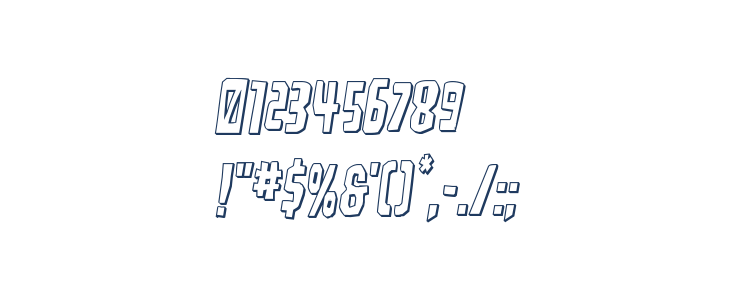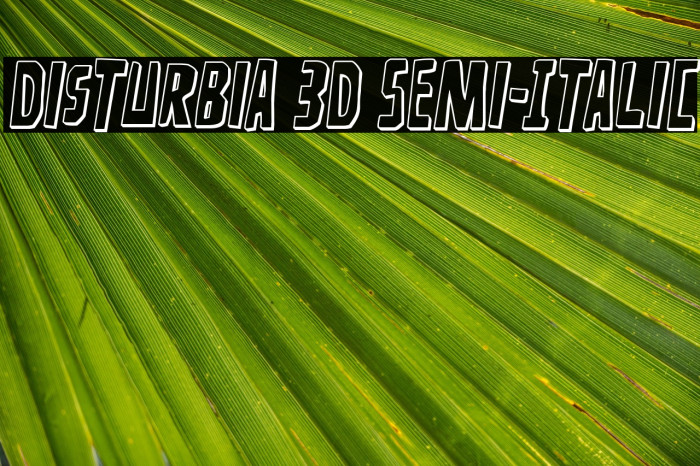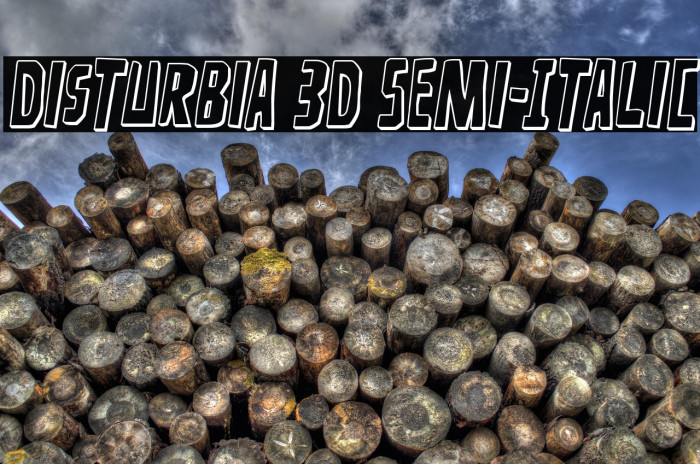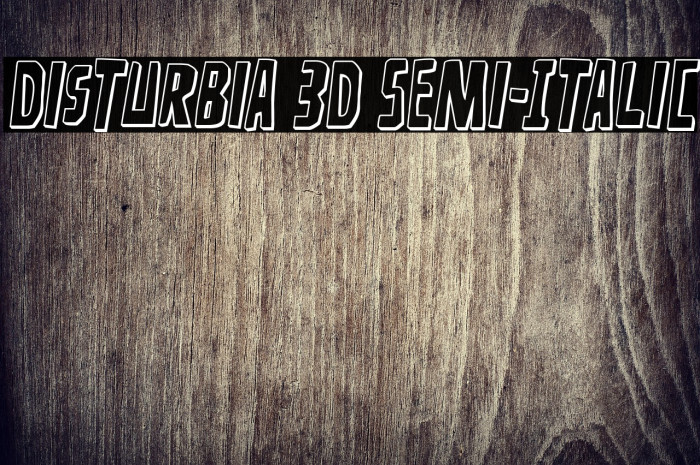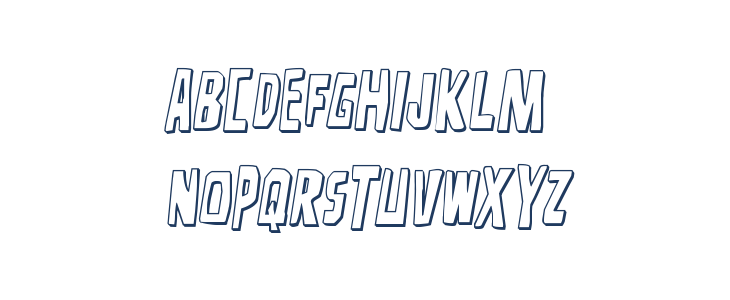
Disturbia 3D Semi-Italic Font
Disturbia 3D Semi-Italic Description
This font features a bold, three-dimensional appearance with a semi-italic slant, giving it a dynamic and energetic feel. The characters are outlined, creating a sense of depth and movement. The uppercase and lowercase letters maintain a consistent style, with sharp angles and clean lines. The numerals and special characters follow the same design principles, ensuring uniformity across the font. Its unique style makes it stand out, suitable for projects that require a modern and eye-catching typeface.